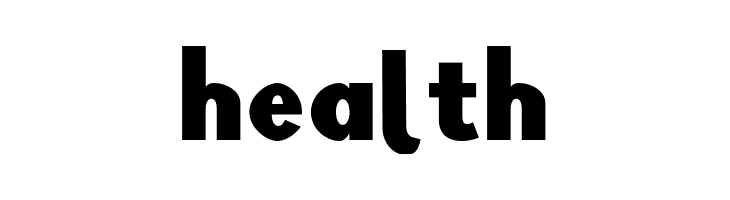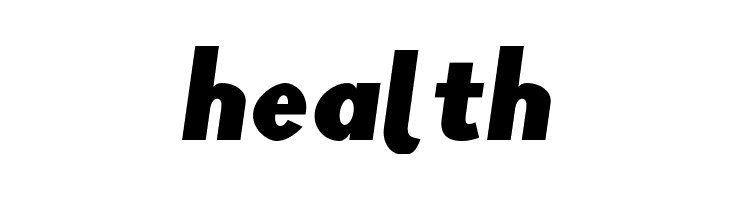
A bold, distressed font with a rugged, vintage texture.
A bold, geometric font with a futuristic, digital aesthetic.
A bold, playful font with rounded, whimsical characters.
A bold, geometric font with sharp angles and a blocky appearance.
A bold, geometric font with a strong, angular design.
A bold, geometric font with arrow-like extensions for a dynamic look.
A bold, geometric font with a strong, angular design.
A bold, geometric font with rounded edges and minimal contrast.
A playful, hand-drawn ink style font with bold, irregular strokes.
A bold, geometric font with a modern, tech-inspired aesthetic.
A bold, geometric font with a modern and decorative style.
A modern, geometric font with a futuristic and sleek design.
A bold, dynamic font with sharp, angular edges and a modern flair.
A bold, geometric font with a futuristic and modern design.
A modern, geometric font with circular and linear elements for a sleek, futuristic look.
A bold, angular font with a modern, futuristic style.
A playful, bold font with rounded, organic shapes and consistent stroke width.
A bold, geometric font with clean lines and a modern aesthetic.
A bold, geometric font with angular, monolithic letterforms.
A bold, geometric font with a futuristic and industrial design.
A bold, geometric font with a futuristic and blocky design.
A bold, geometric font with a futuristic and structured design.